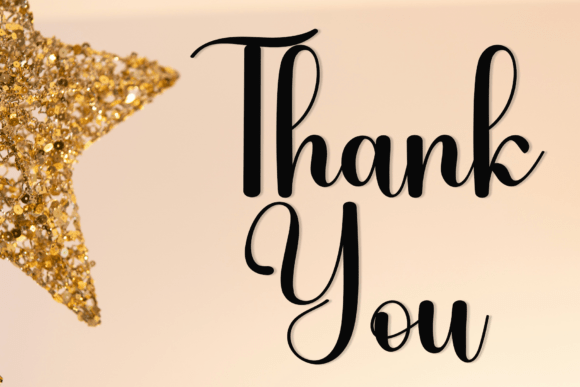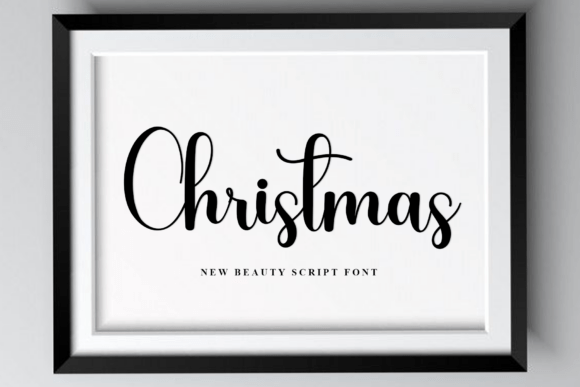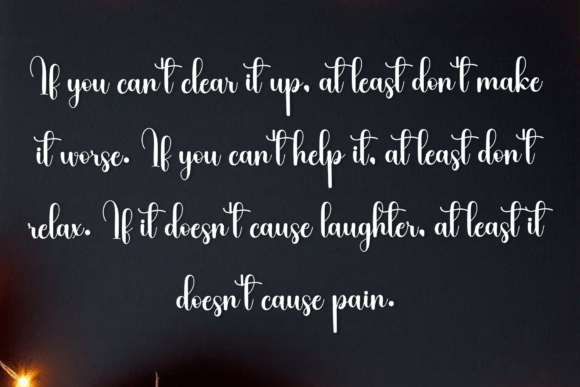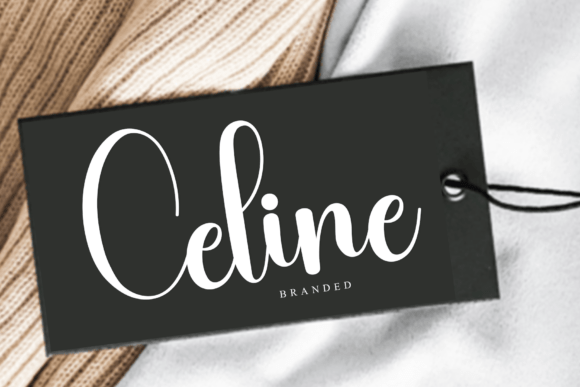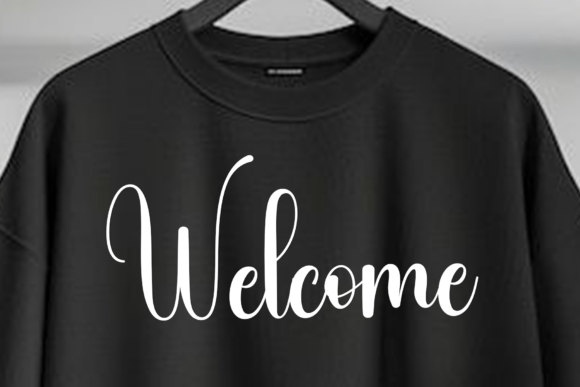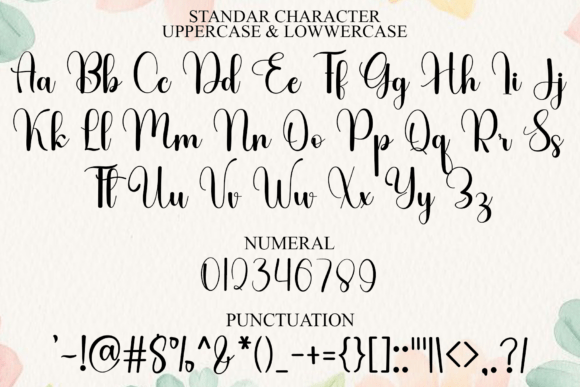
Deck the Halls with Typography: Introducing Christmas Music Font
As the snowflakes start to fall and the twinkling lights adorn the streets, I find myself in the midst of a creative frenzy. The holiday season is a time when imagination knows no bounds, and for designers, it’s a chance to unleash their festive flair. Whether it’s a festive greeting card or a gift tag, there’s something special about bringing joy to others through our designs.
Enter Christmas Music Font, a merry typeface that captures the essence of the holiday season. With its whimsical flair and decorative elements, this font adds a touch of magic to your designs. Perfect for holiday-themed projects, it brings a cheerful and nostalgic ambiance to your words. As a designer, you’ll love the versatility of Christmas Music Font, which makes it a valuable addition to your typography arsenal.
Christmas Music Font Key Features
- Font Family: A unique, festive font designed specifically for Christmas music and holiday content, with a wide range of characters and symbols.
- Size: The font family includes 5 different font sizes, ranging from 12 to 72 points, allowing for flexible design options.
- Resolution: Optimized for high-resolution displays, with clear and crisp typography at resolutions up to 300 DPI.
- Unique Characteristics: Includes special characters and symbols, such as Christmas trees, bells, and snowflakes, to add a festive touch to designs.
- Language Support: Supports multiple languages, including English, Spanish, French, and German, making it a versatile font for international designs.
Designer Review: Christmas Music Font
I’ve had the chance to dive into the Christmas Music Font, and I’m here to give you my honest review.
- Fun and festive design: The font is perfect for adding a holiday touch to your projects.
- Easy to read: Despite its playful feel, the font is still clear and easy to read, making it a great choice for text-heavy designs.
- Customization options: The font comes with a range of customization options, including size, color, and style, making it easy to tailor to your needs.
- Limited character set: The font is primarily designed for displaying festive messages, and the character set is limited, which may not be suitable for complex text-based projects.
- Not ideal for body text: While the font is great for headlines and titles, it’s not the best choice for body text due to its playful, attention-grabbing style.
The Christmas Music Font is a fun and festive addition to any project, but it’s essential to keep its limitations in mind when choosing a font for your design. If you’re looking to add a holiday touch to your project, this font is a great choice, but for more complex text-based projects, you may want to consider a more versatile font.
Use the Christmas Music Font to add a festive touch to your designs. Pair it with red and green colors to create a traditional holiday look. Experiment with different font sizes and styles to create a unique and eye-catching design.
The Christmas Music Font is perfect for:
- Holiday greeting cards
- Christmas party invitations
- Holiday social media posts
- Christmas marketing materials